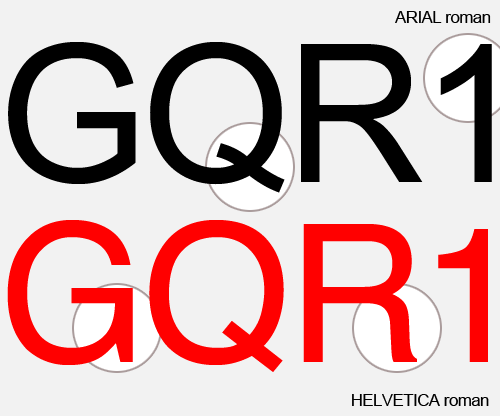
I've got a strange problem with my Arial font. I have a Word file containing text in Arial, and it opens and displays fine in Word. However, when I open that file in Pages, Pages tells me that Arial is not available and that it substituted with ArialMT. The result is that the text looks strange, to say the least (see attached screenshot).
What can I do? FontBook reports Arial as available and activated... I appreciate any suggestions!
Or, you could use the font Helvetica instead. It's extremely similar, with slight differences that in most professional's eyes makes it better.
I know. If I write something, I never use Arial.
The problem is that if I get a file, I'd like to see it how it was in the first place. Pages does not offer me a choice to manually select the font it should substitute for the "missing" Arial - the field in the error window is greyed out. Or am I missing something?
That's not always an option. There are many universities where Helvetica is not considered an acceptable font, for example.
A temporary fix would be to select all the text (command + a) and then change the font to Arial. That should display close to it's intended way. It's probably caused by a difference in the way Microsoft refers to fonts versus the way Pages does.
Well, if I change the text to Arial in Pages, it looks the same way (funny, that is). Arial italics and bold work. Arial Regular works in TextEdit, though, and everything look ok in FontBook - meaning, it looks like I think it should look.
Another funny thing in Word: the file opens and Arial Regular is displayed fine. However, Arial regular is not available in Word's font menu.